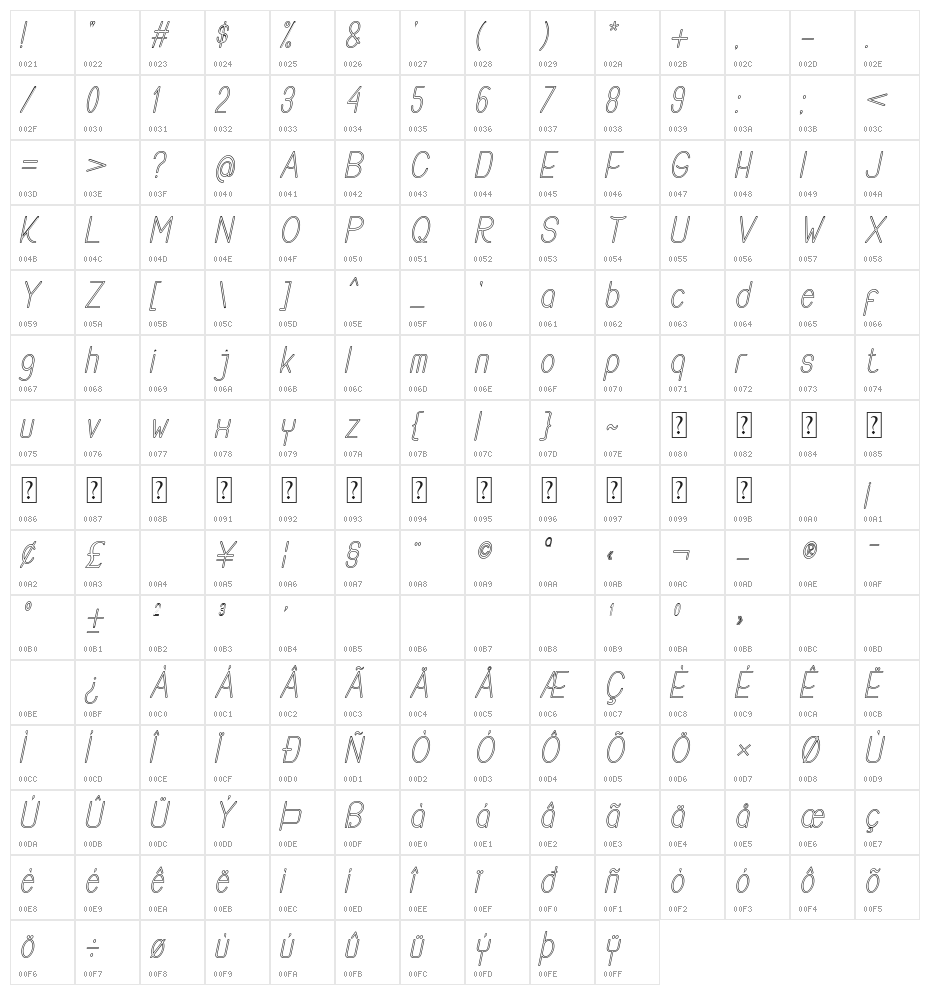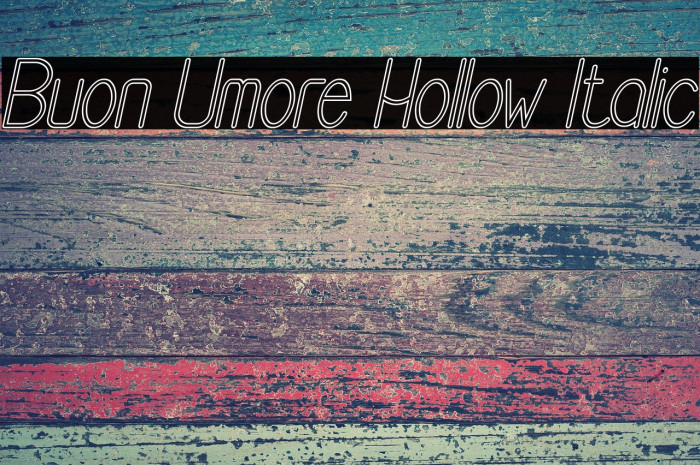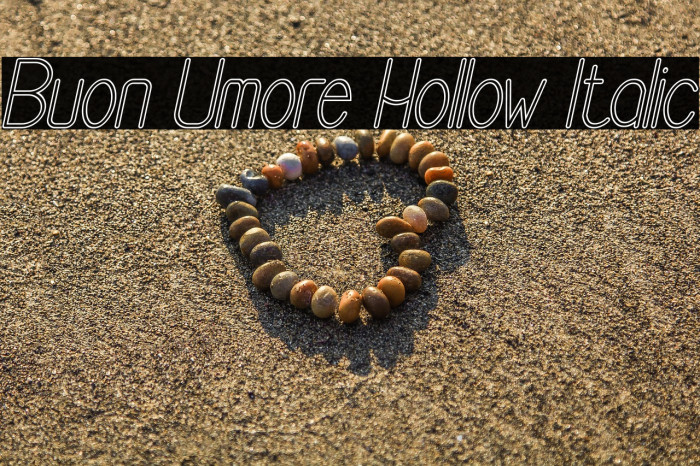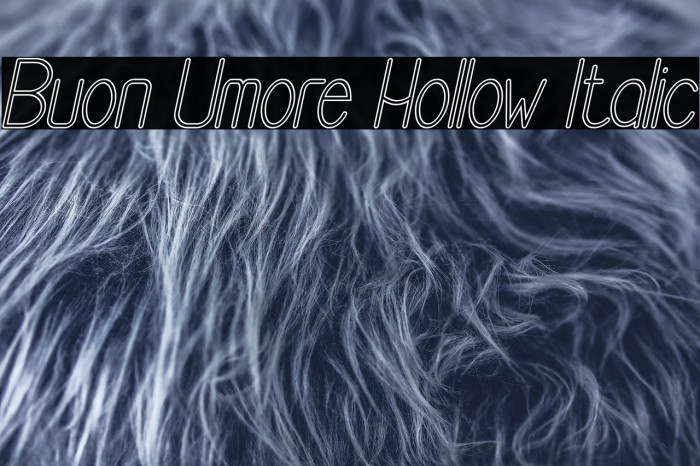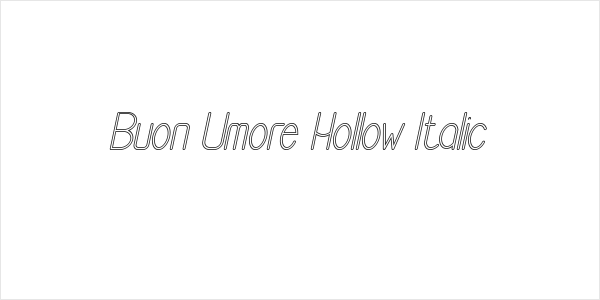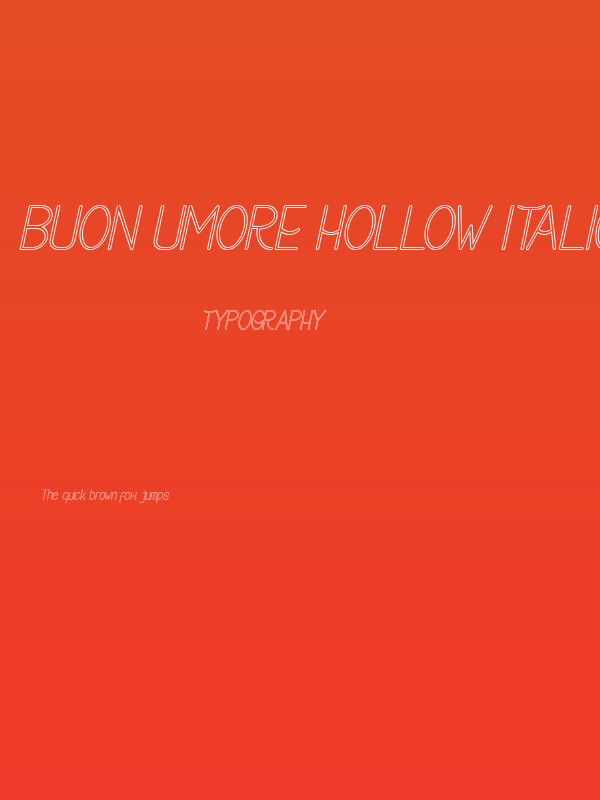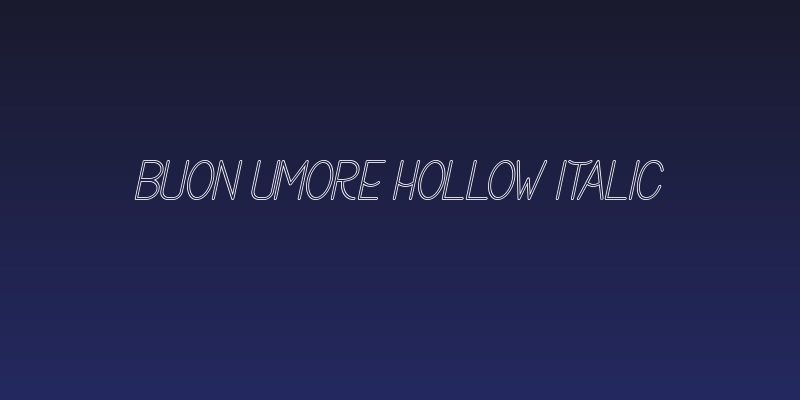
Buon Umore Hollow Italic Font
Buon Umore Hollow Italic Description
This font features a hollow, outlined design with a distinct italic slant, giving it a dynamic and modern appearance. The characters are evenly spaced with a consistent stroke width, creating a clean and airy look. The uppercase and lowercase letters maintain a uniform style, with rounded edges that add a touch of softness to the overall aesthetic. The numerals and special characters are designed to match the letterforms, ensuring a cohesive look across all elements. This font's unique hollow design makes it stand out, while the italic angle adds a sense of movement and energy.
| Use Case | Logos, Posters, Branding |
| Proposed Projects | Ideal for creative projects such as posters, logos, and branding materials where a modern and eye-catching font is needed. |